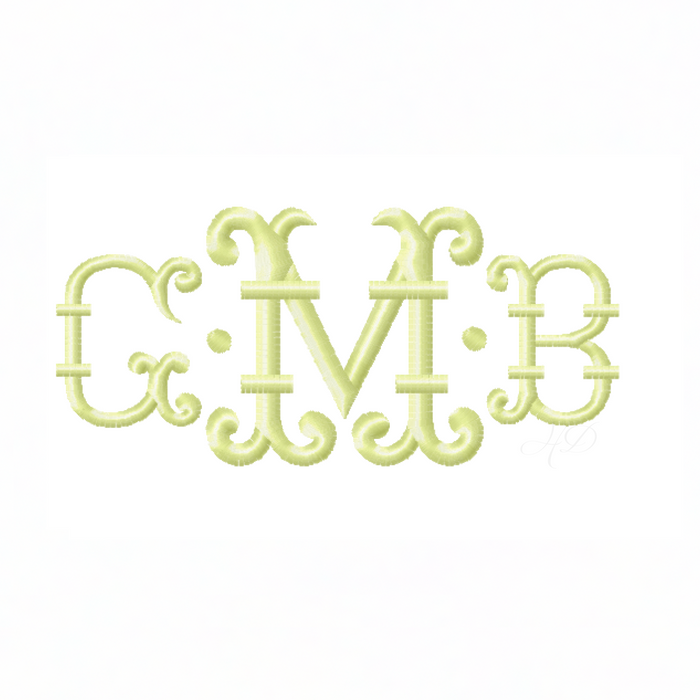
Small Nora Satin Embroidery Font Package
Unleash your creativity with the Small Nora Satin Embroidery Font Package. This versatile satin stitch font includes all uppercase letters A-Z and an accent dot, perfect for personalizing your projects. Available in four sizes—1/2" (H), 3/4" (3Q), 1", and 1.5"—it caters to a variety of designs and crafting needs.
Transform your projects with this unique embroidery font and add a personalized touch to your designs!